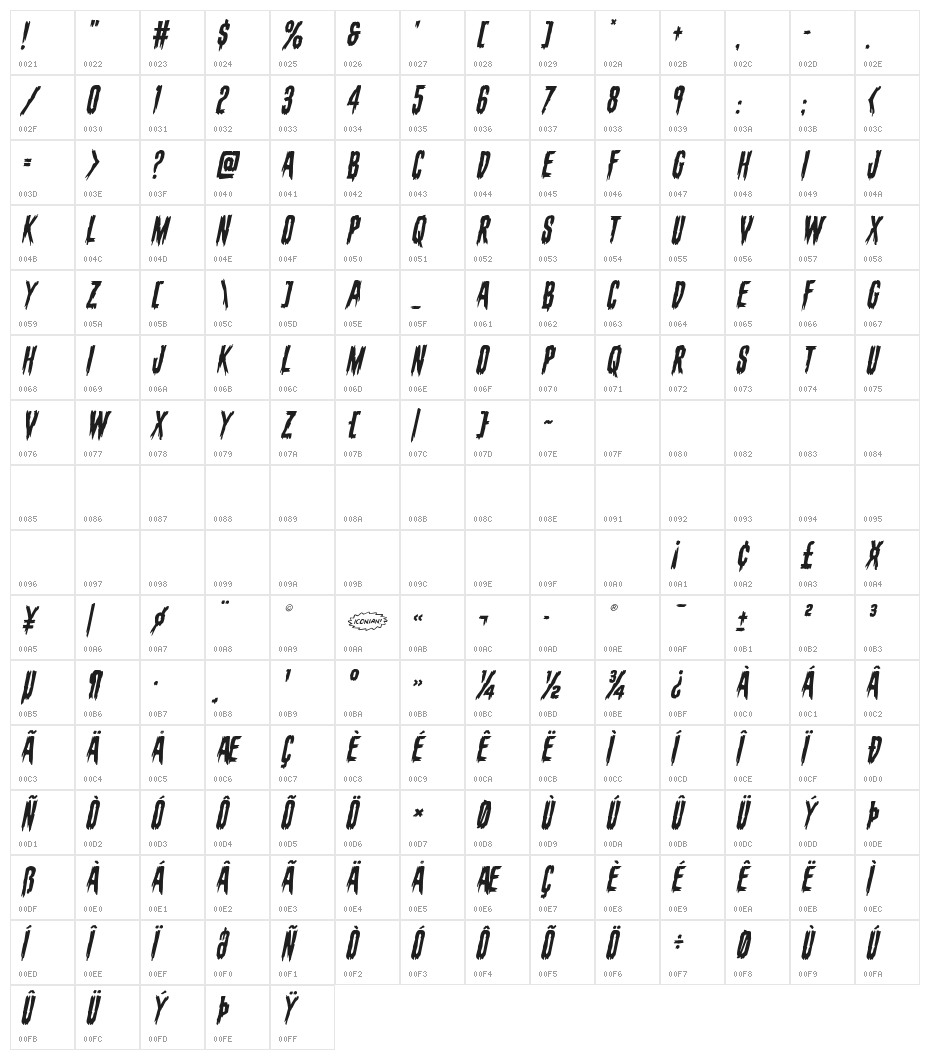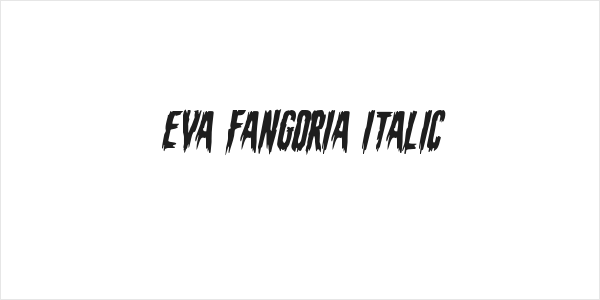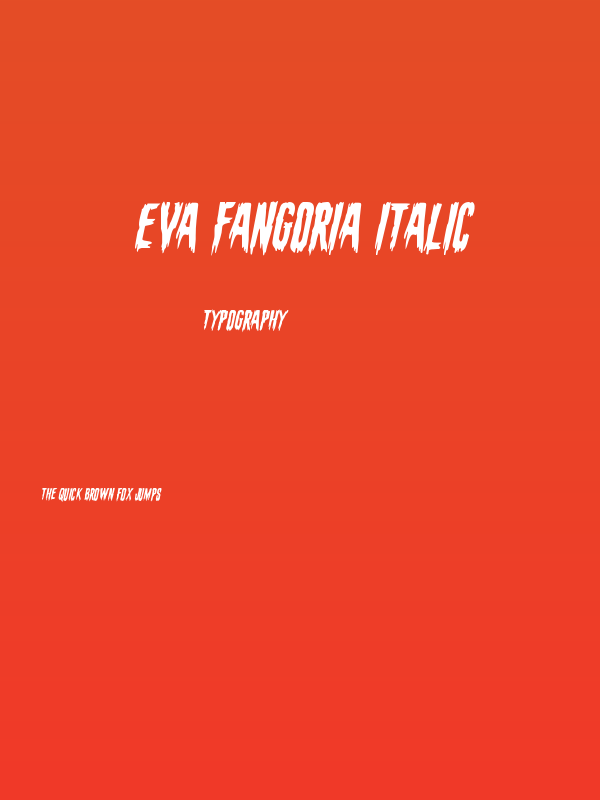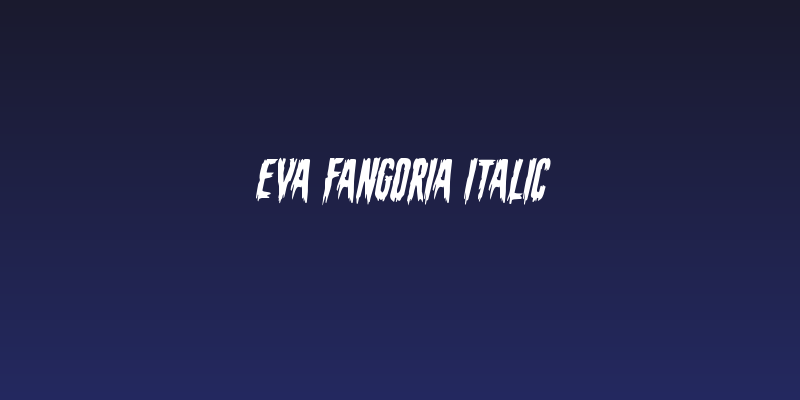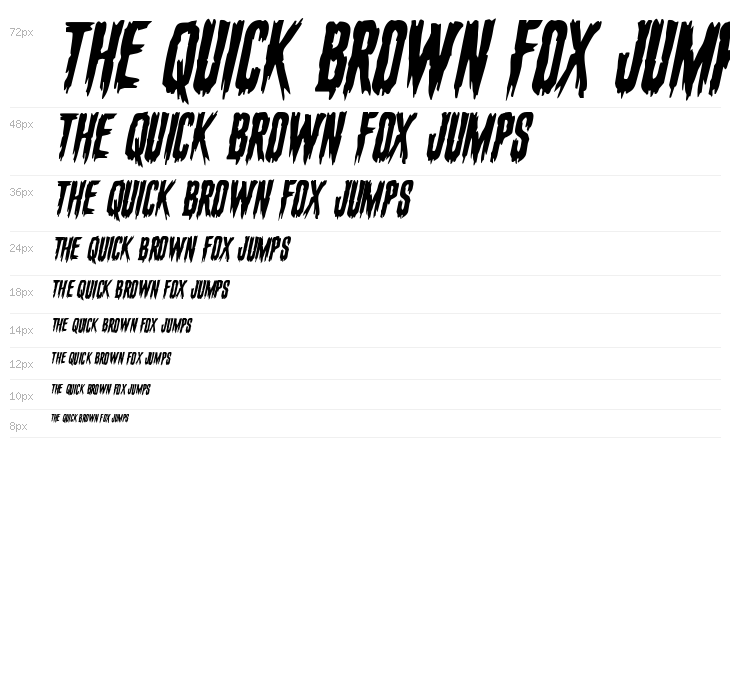
Eva Fangoria Italic Font
Eva Fangoria Italic Description
This font features a bold, jagged style with sharp, irregular edges that give it a dynamic and edgy appearance. The characters are italicized, adding a sense of movement and urgency. The uppercase and lowercase letters maintain a consistent design, with exaggerated angles and a slightly condensed form. The numbers and special characters follow the same aesthetic, ensuring a cohesive look across all elements. This font is ideal for creating a dramatic impact, with its high contrast and distinctive style making it stand out in any design.
| Proposed Projects | Ideal for horror-themed posters, Halloween invitations, edgy branding, and video game titles. |